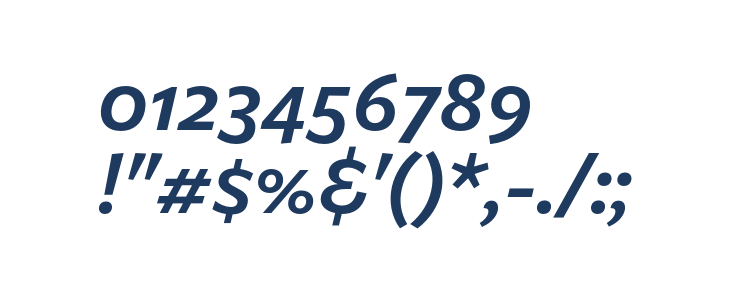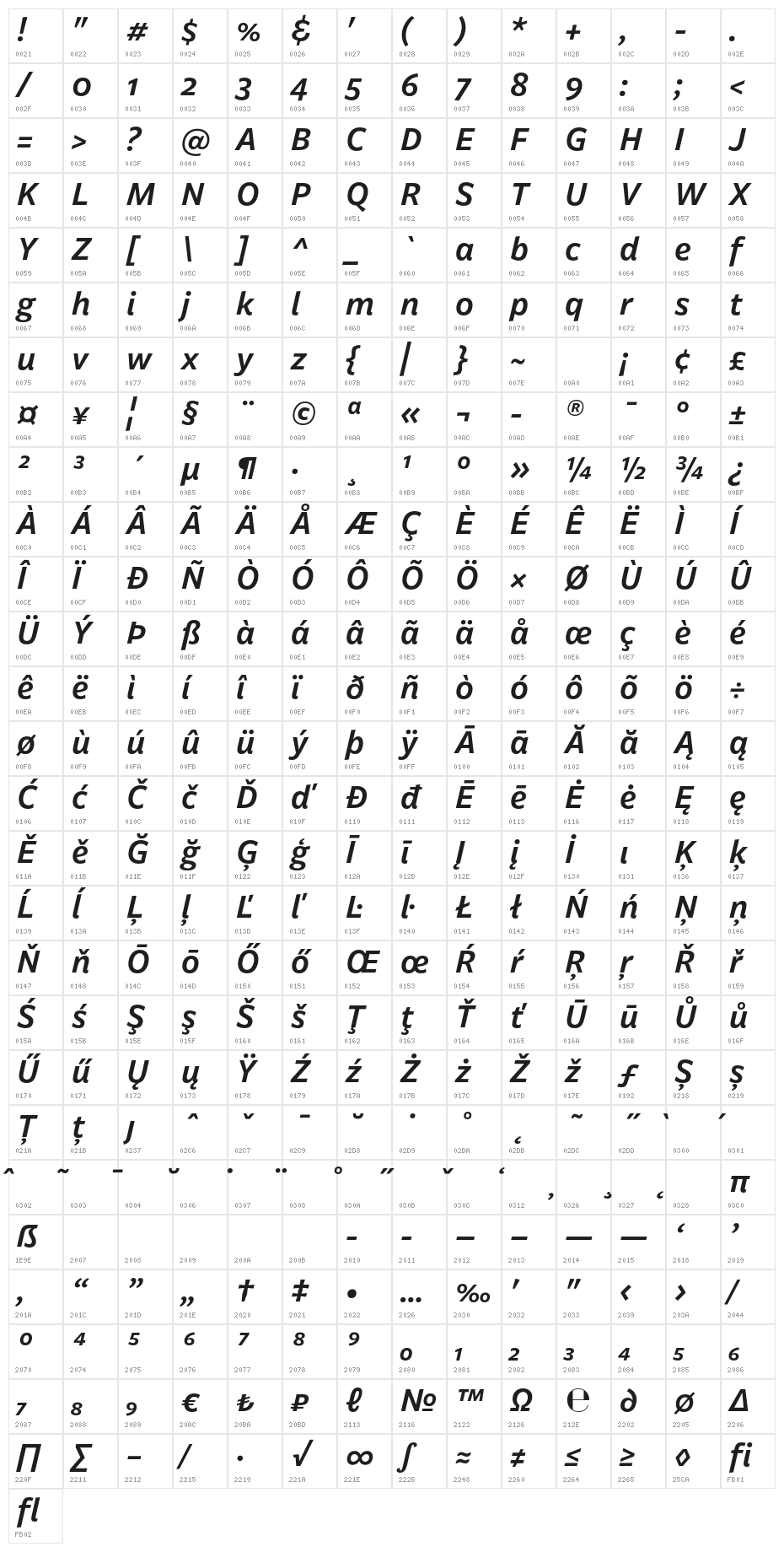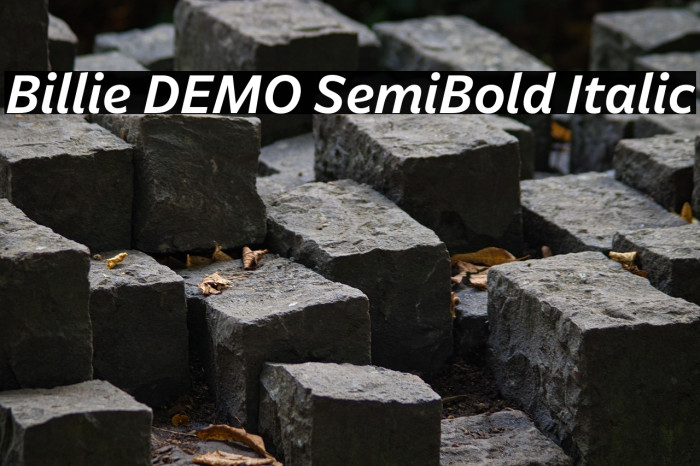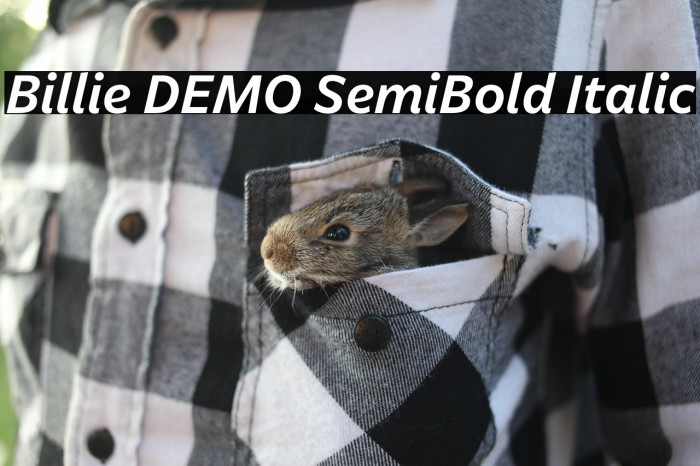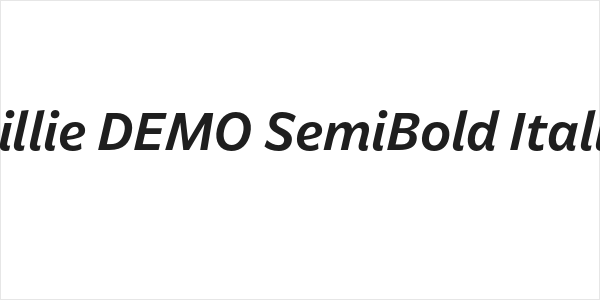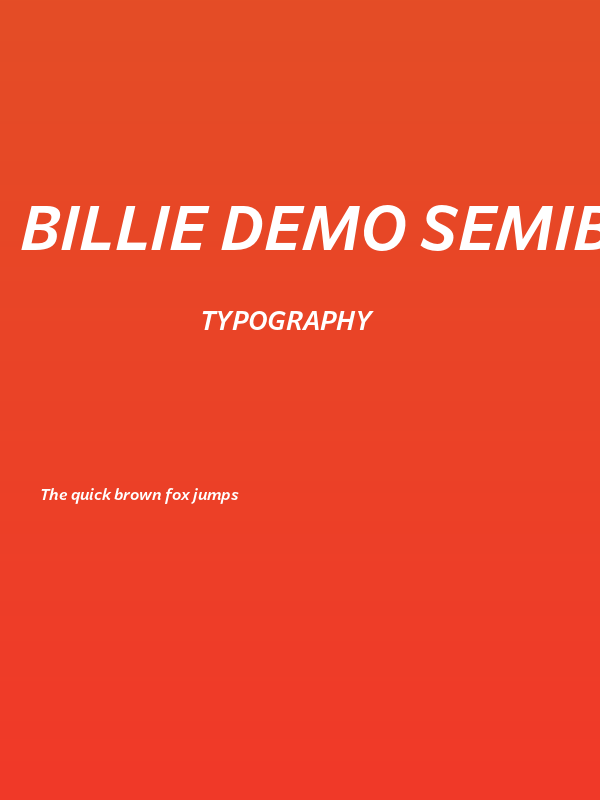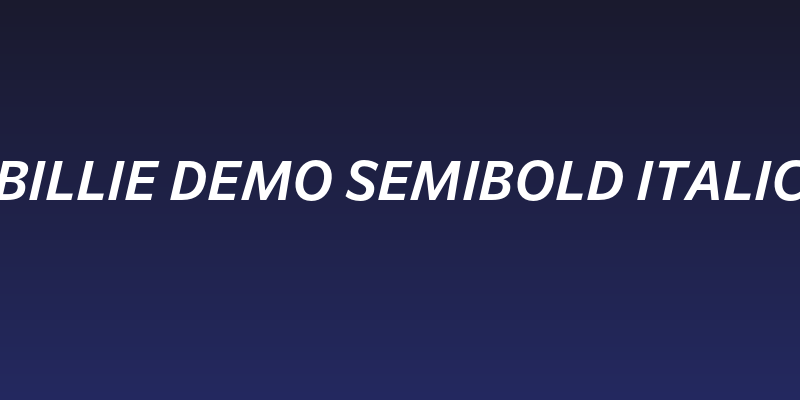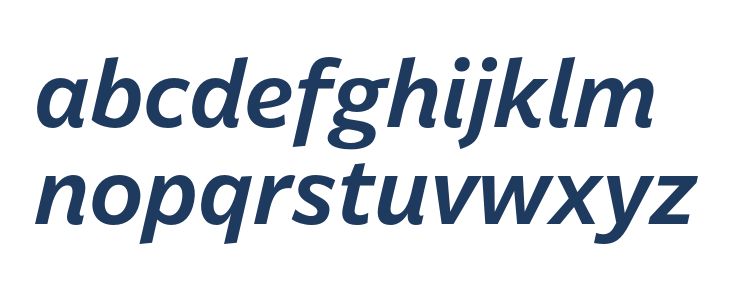
Billie DEMO SemiBold Italic Font
Billie DEMO SemiBold Italic Description
This font features a sleek and modern design with a semi-bold weight and italic style. The characters are slightly slanted, giving a dynamic and forward-moving appearance. The strokes are consistent, with medium contrast, providing a clean and professional look. The uppercase and lowercase letters are well-proportioned, and the numerals are clear and easy to read. Special characters are distinct and match the overall style, making this font versatile for various applications.
| Proposed Projects | Ideal for branding, advertising, and editorial design projects where a modern and professional look is desired. |